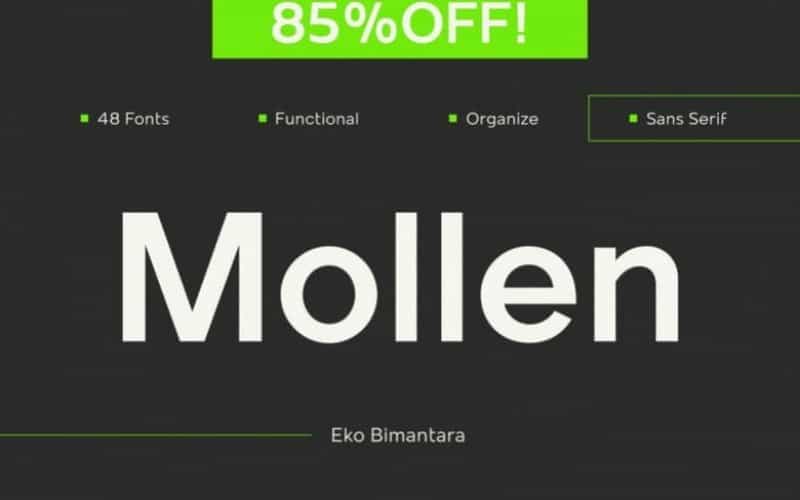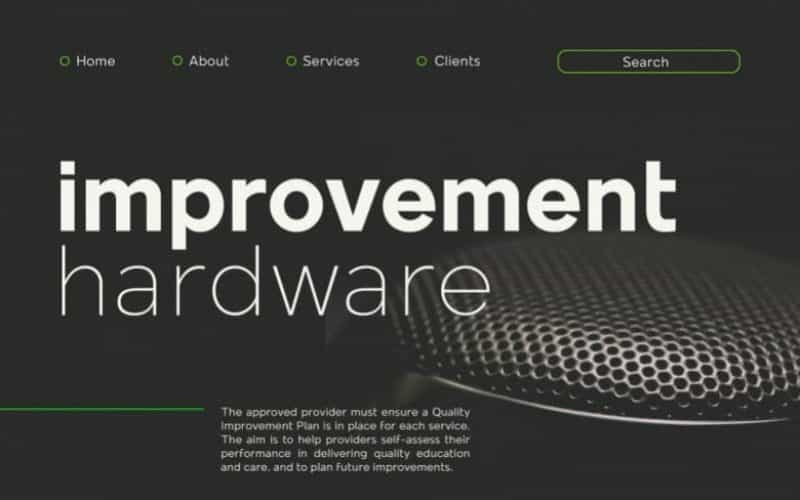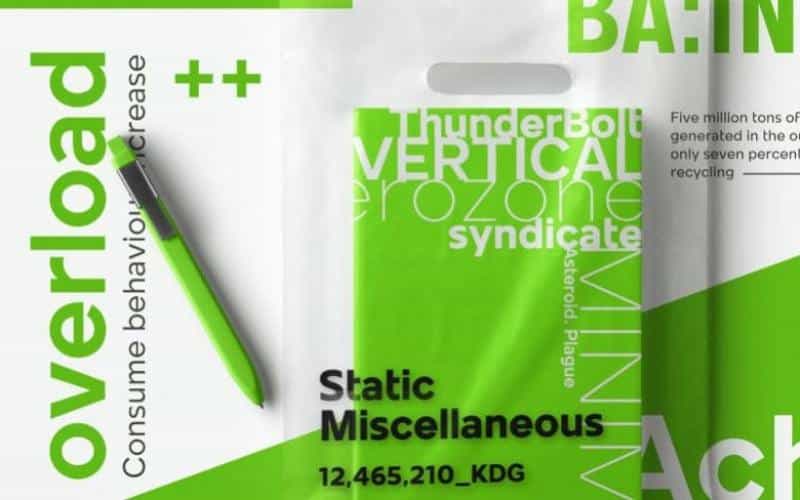
Mollen is a type of sans serif form that is meant to be functional. Every glyphs is structured geometrically with the following visual characteristics; Basic and clear form with a small contrast beam, a standard o-wide, an angled cutting mix, and a straight cut. Lower caps have a flat top and a tiny descender. Mollen was designed to be adaptable and great for a contemporary, cutting-edge or possibly even high-tech look.